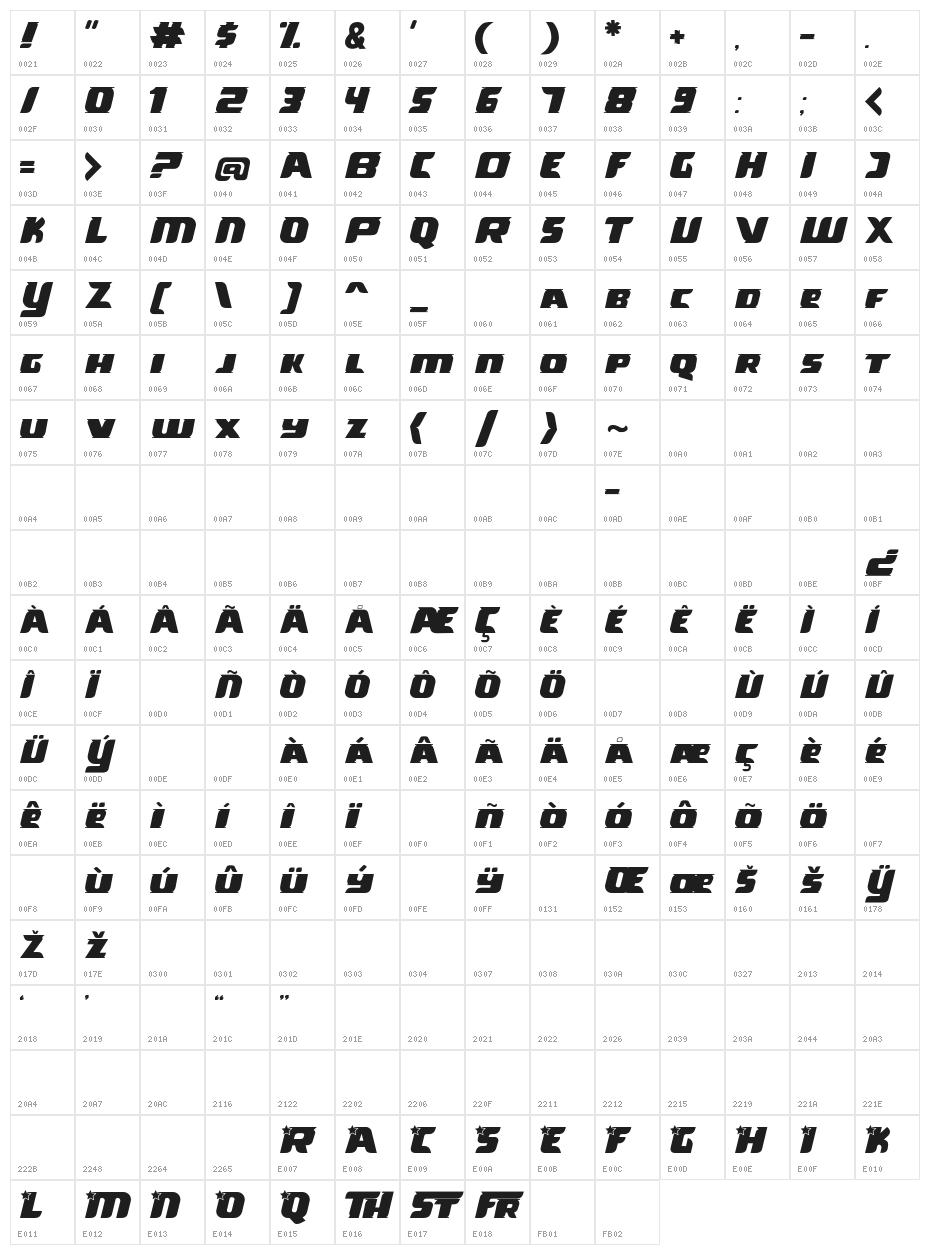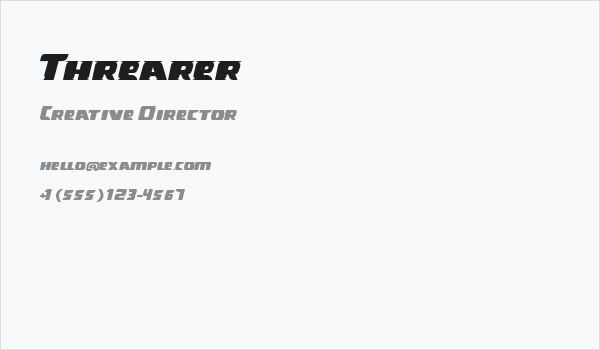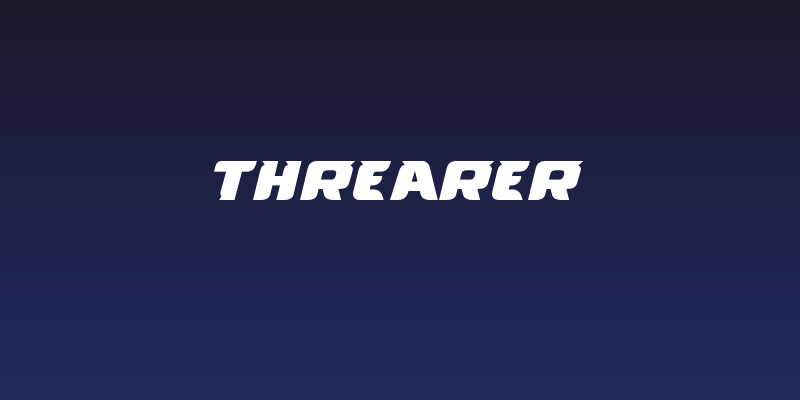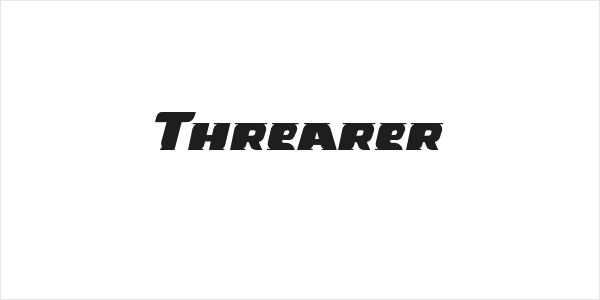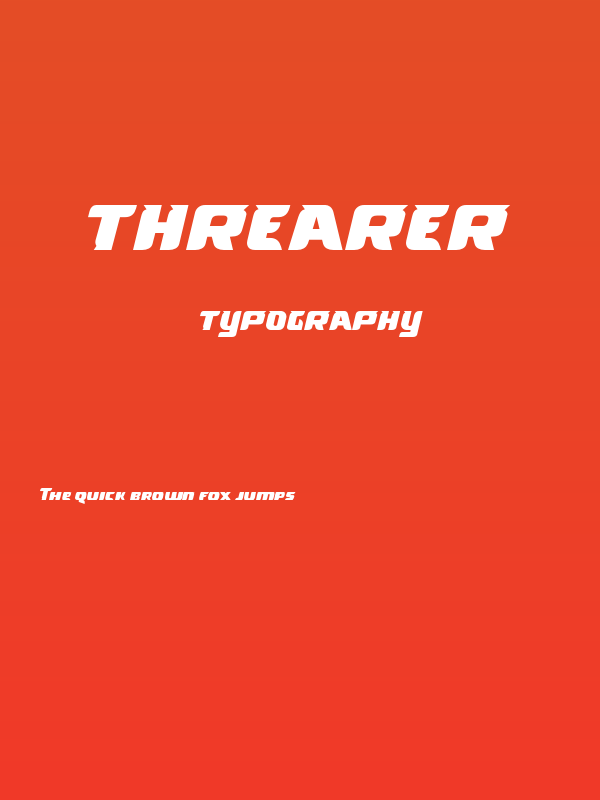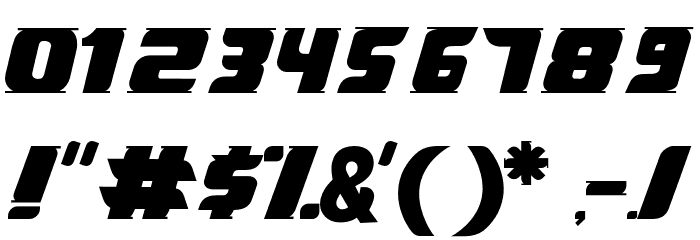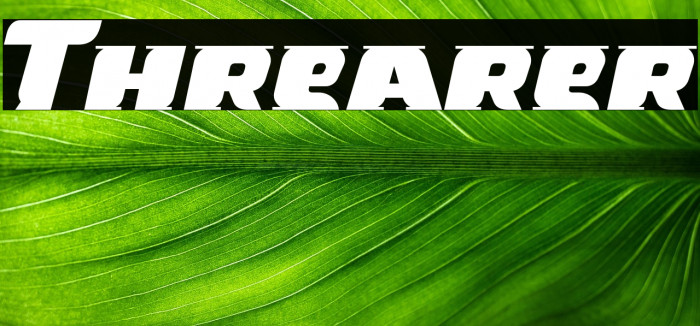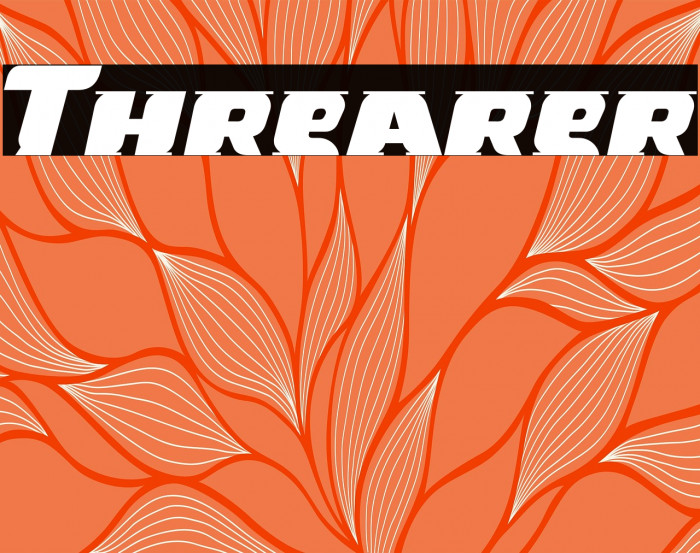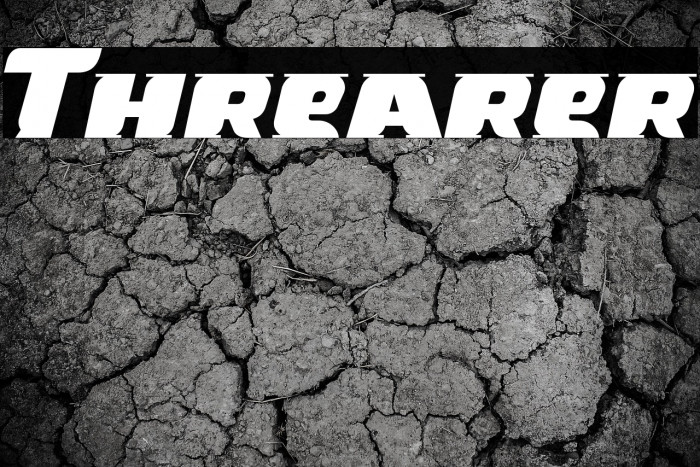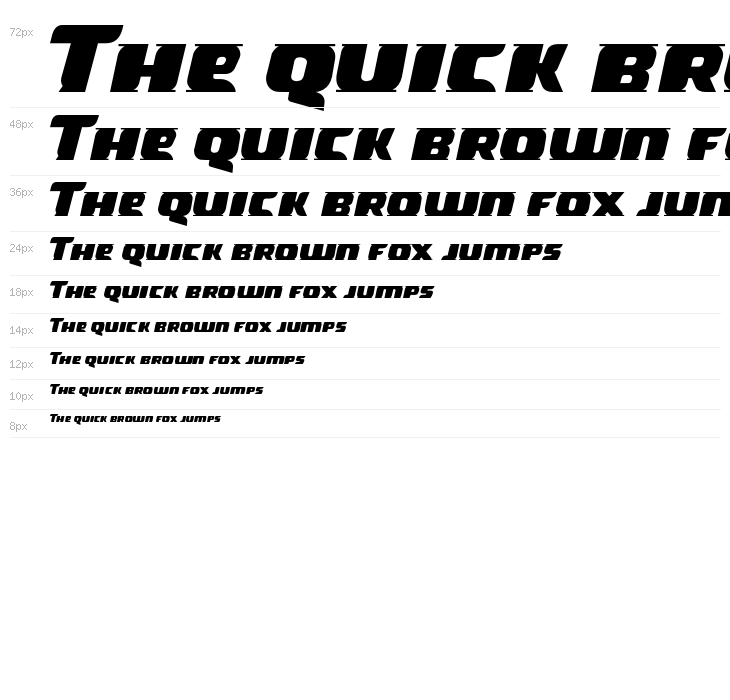
Threarer Font
Threarer Description
This font features a bold and dynamic style with a futuristic and angular design. The characters are heavily stylized with sharp edges and a slanted orientation, giving a sense of motion and speed. The uppercase and lowercase letters maintain a consistent design, while the numerals and special characters complement the overall aesthetic. The font's thick strokes and geometric shapes make it highly legible and impactful, suitable for attention-grabbing designs.
| Overall Style | Futuristic |
| Proposed Projects | Ideal for sports branding, video game titles, sci-fi themed posters, and dynamic advertising campaigns. |